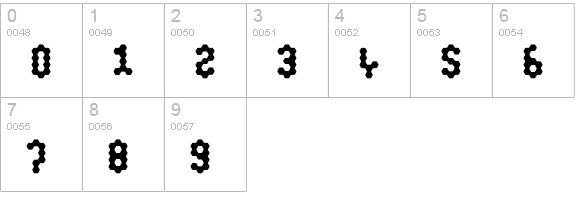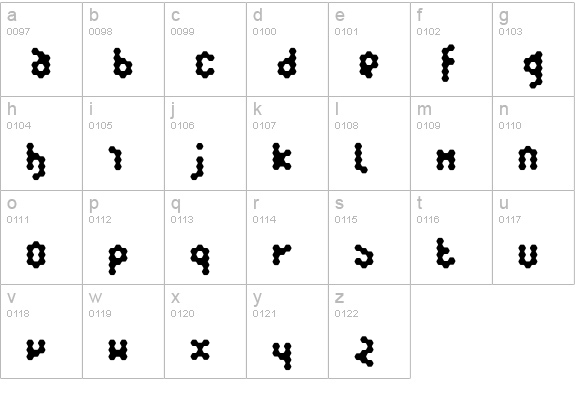
Hive-Unit Font Details
Hive-Unit font is a stunning display typeface that exudes a modern and futuristic aesthetic. With its sharp lines and geometric shapes, this font is perfect for creating eye-catching headlines, posters, and branding materials. The unique design of Hive-Unit font sets it apart from traditional typefaces, making it a versatile choice for various design projects. The best part? Hive-Unit font is completely free to download at FontsMarket.com! This means you can easily access this stylish font to elevate your designs without any cost. Whether you're a graphic designer, a student, or a hobbyist, Hive-Unit font offers endless possibilities for creative expression. Don't miss out on this opportunity to enhance your projects with the sleek and contemporary look of Hive-Unit font. Download it today and let your creativity soar!